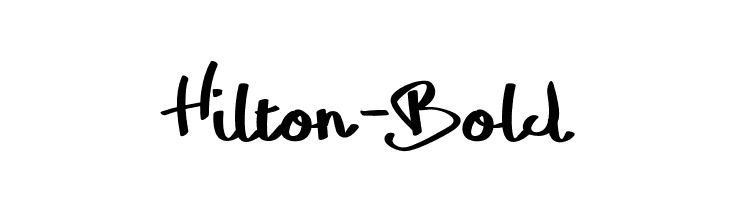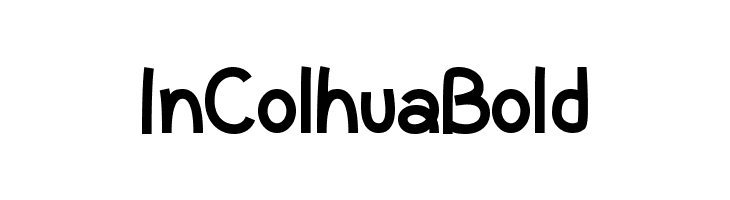
A bold, playful font with thick, rounded strokes and a whimsical style.
A modern, rounded sans-serif font with uniform stroke width and clear readability.
A bold, playful font with a three-dimensional shadow effect.
A playful, handwritten-style font with elegant loops and consistent strokes.
A modern, italic font with tall, narrow characters and consistent stroke width.
A bold, italic slab serif with strong, condensed characters and dynamic style.
A playful, collage-like font with bold, irregular shapes and high contrast.
A playful, hand-drawn font with quirky, irregular letterforms.
A bold, 3D italic font with a dripping, liquid texture for a horror-themed aesthetic.
A bold, angular font with a modern, geometric style.